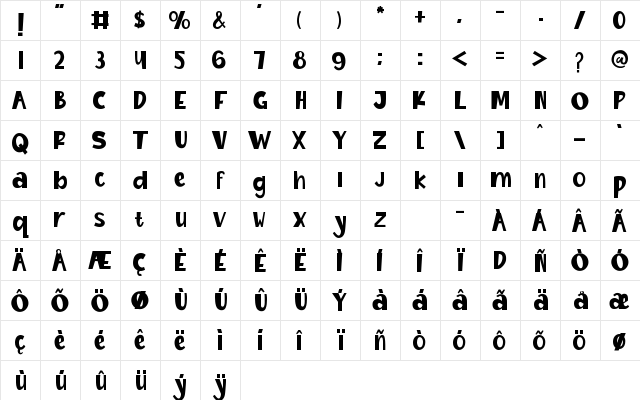
Kids Board Regular
Design Context for Kids Board Typeface
Kids Board trades formality for fun, with bouncy, characterful letterforms that bring warmth and energy to any project.
Font Pairing: Pairs well with a rounded or humanist sans for body copy, maintaining the friendly tone without relying on Kids Board to carry extended reading.
Pro Tip: Use Kids Board at larger display sizes where its expressive character can land. Pair with a clean, simple sans for body copy to maintain readability.